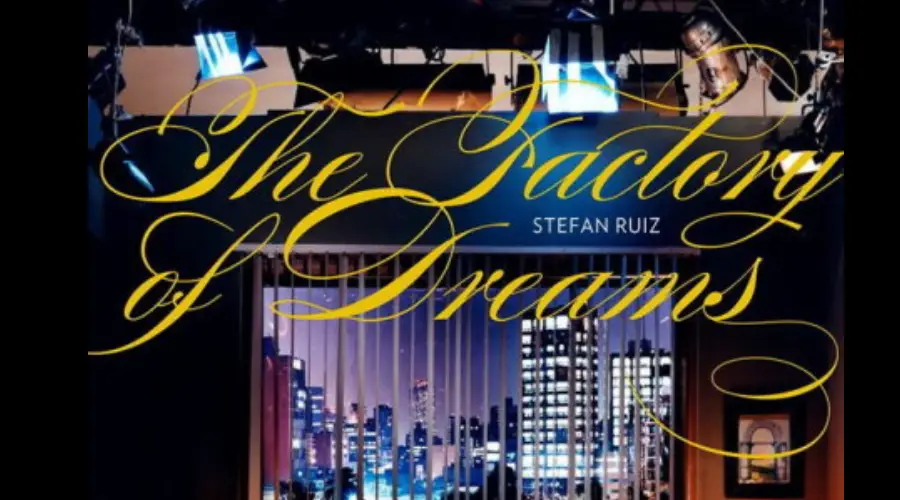
The Factory of Dreams Font is a sophisticated script typeface associated with the book Factory of Dreams by Stefan Ruiz. This book captures the evolving concept of the “American Dream” through striking photography, and its cover features a calligraphic font that enhances its artistic appeal.
Based on the given findings, the most relevant similar font is:
Burgues Script by Alejandro Paul This font is the closest match to the typeface used on the book cover. It embodies refined cursive elegance, making it ideal for branding, invitations, and luxurious designs.